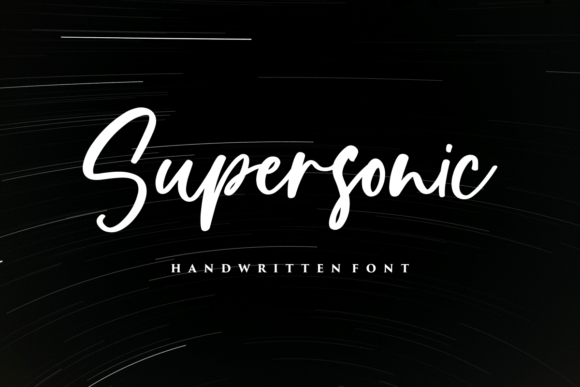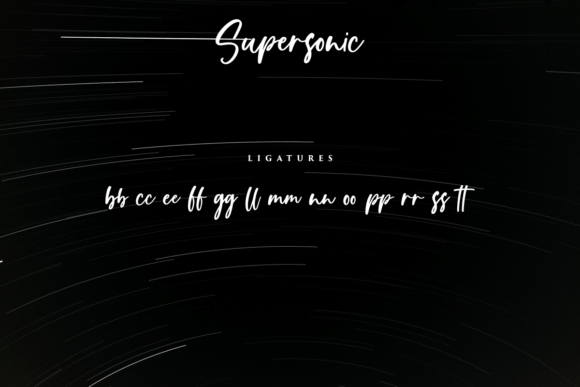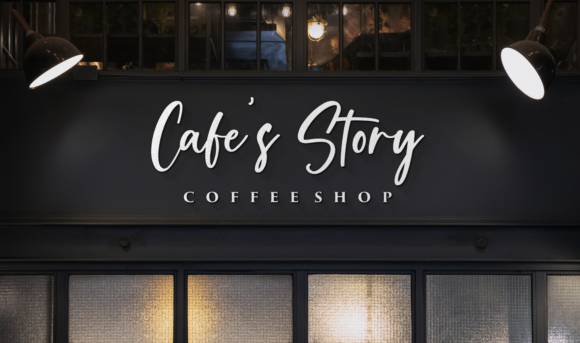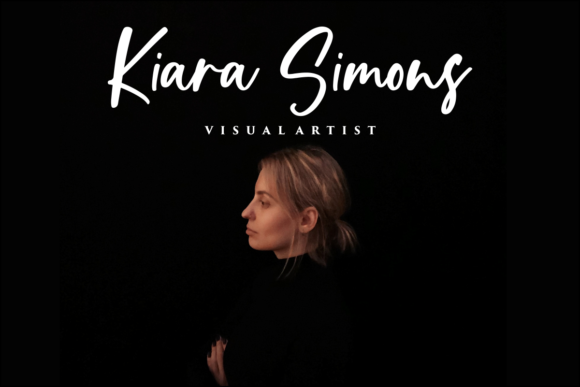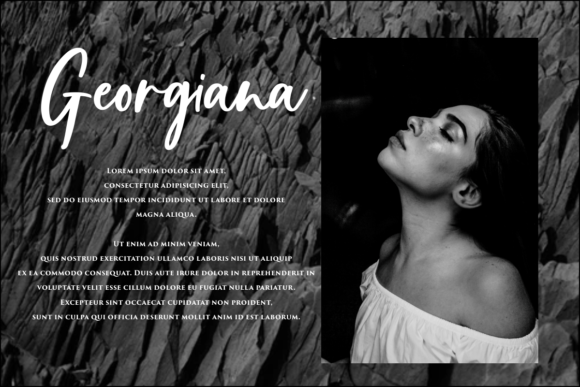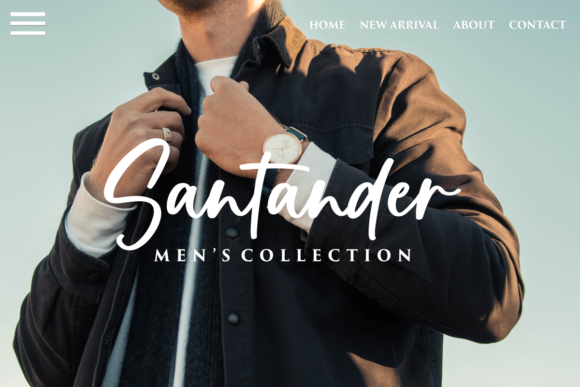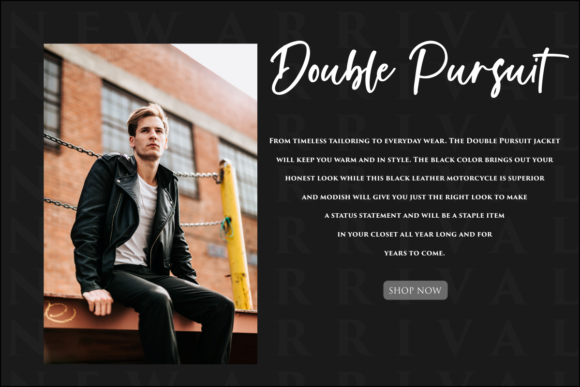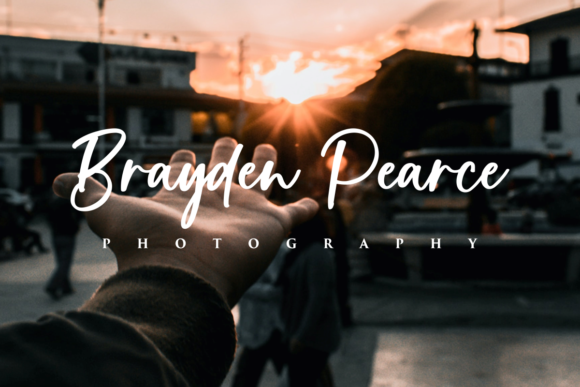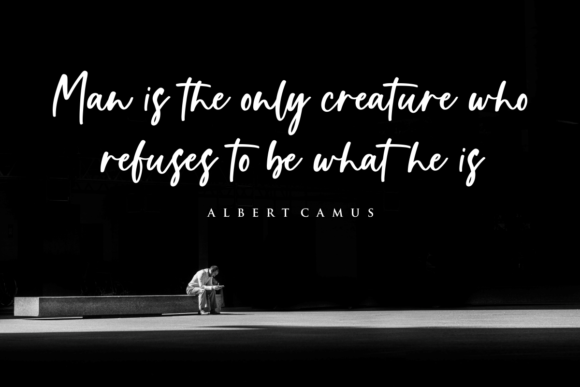
Supersonic Font
About Supersonic Font
Supersonic sounds like an excellent choice for a natural handwritten font! With its modern style and beautiful beginning and ending strokes, Supersonic offers a versatile and appealing aesthetic. Its combination of elegance and casualness makes it suitable for various design needs.
Using Supersonic for logos and branding can give your brand a distinctive and personalized touch. Its natural handwritten style adds a sense of authenticity and uniqueness to your logo design. Whether you’re creating a logo for a business, personal brand, or event, Supersonic can help you make a memorable impression.
For titles, Supersonic can bring a stylish and eye-catching element to your designs. Its elegant and casual vibe adds visual interest to headings, headers, or prominent text elements. Whether it’s for a website, poster, or magazine layout, Supersonic can make your titles stand out and capture attention.
In social media posts, Supersonic can enhance your textual content with its natural and relaxed appearance. It adds a personal and approachable touch to quotes, announcements, or captions. Whether you’re sharing on Instagram, Facebook, or other platforms, Supersonic can contribute to a visually appealing and engaging post.
Advertisements can benefit from the use of Supersonic as well. Its modern style and natural handwriting can create a sense of authenticity and connection with your audience. Whether it’s for print or digital ads, Supersonic can add a touch of character and style that grabs attention and communicates your message effectively.
When it comes to product packaging and product designs, Supersonic can bring a fresh and contemporary look. Its natural handwritten style adds a personal and human touch to labels, tags, or product descriptions. Whether you’re designing for cosmetics, food products, or any other consumer goods, Supersonic can help create a visually appealing and memorable packaging design.
Supersonic can also be used for photography watermarks, special events, magazine layouts, web designs, and more. Its versatility allows for a wide range of applications, adding a touch of elegance and casualness to various design projects.
In summary, Supersonic is a natural handwritten font with a modern style and beautiful beginning and ending strokes. Its elegance, casualness, and versatility make it suitable for logos, branding, titles, social media posts, advertisements, product packaging, product designs, labels, photography, watermarks, special events, magazines, web designs, and more. Embrace its unique and appealing aesthetic to enhance your designs and create a personalized touch. Enjoy incorporating Supersonic into your projects and let your creativity soar!